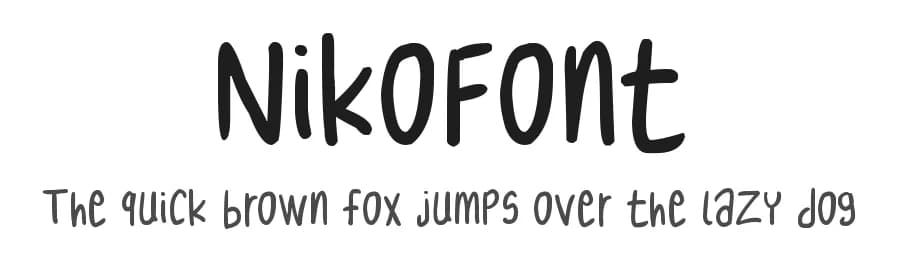
NikoFont is a script & handwritten font designed by Niko Caruso. It includes 162 glyphs, a regular weight, TTF (TrueType) format, and 121 languages. NikoFont is free to download; check the license details on this page before commercial use. Script & handwritten fonts like NikoFont work best for wedding invitations, greeting cards, signatures, and elegant branding.
NikoFont is a script font that shines as a display or heading face. Pair it with a clean sans-serif or serif font for body text β the contrast creates a clear hierarchy while the two styles stay balanced and easy to read.
NikoFont is a script handwritten typeface by Niko Caruso, ideal for logos, invitations, branding, and creative projects.